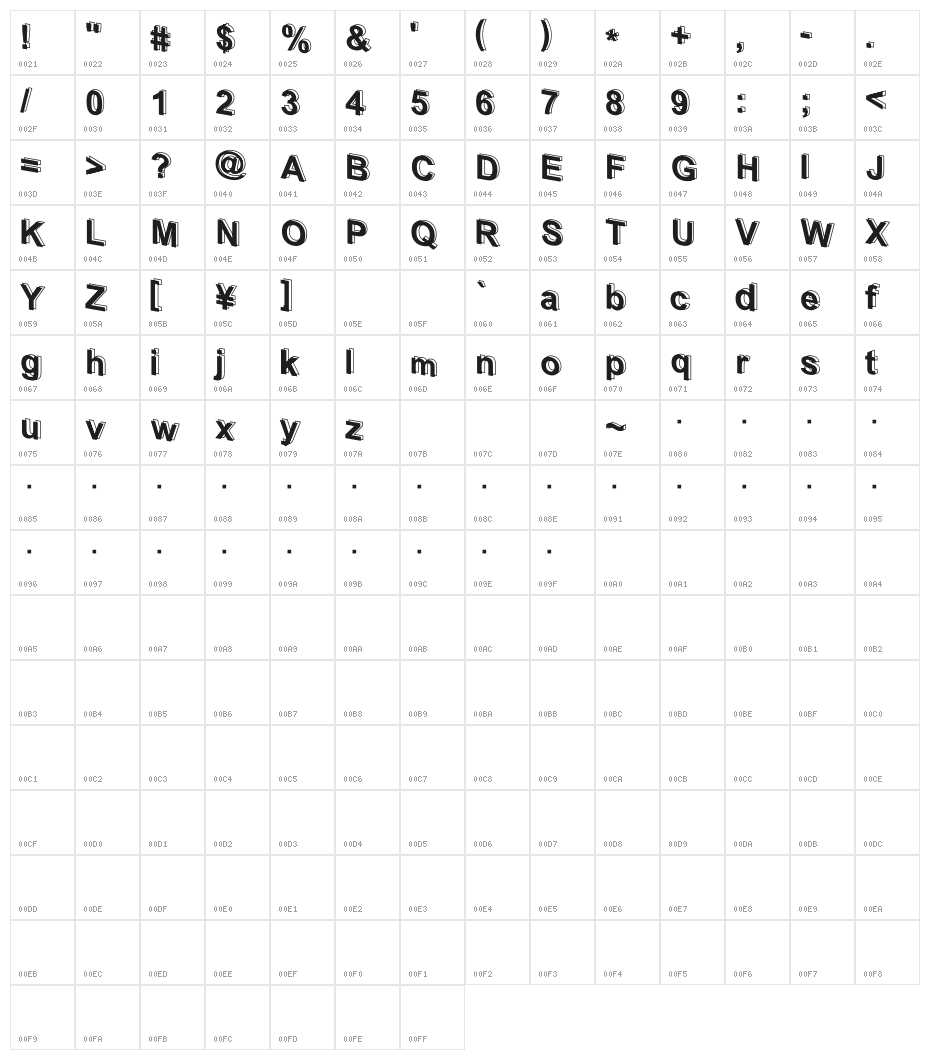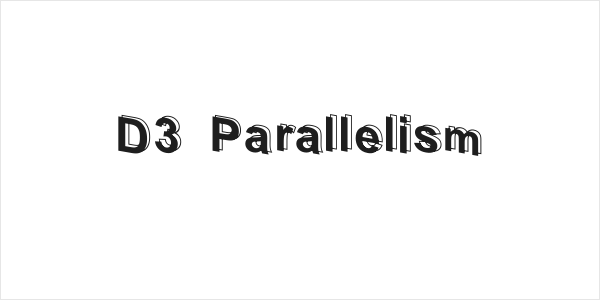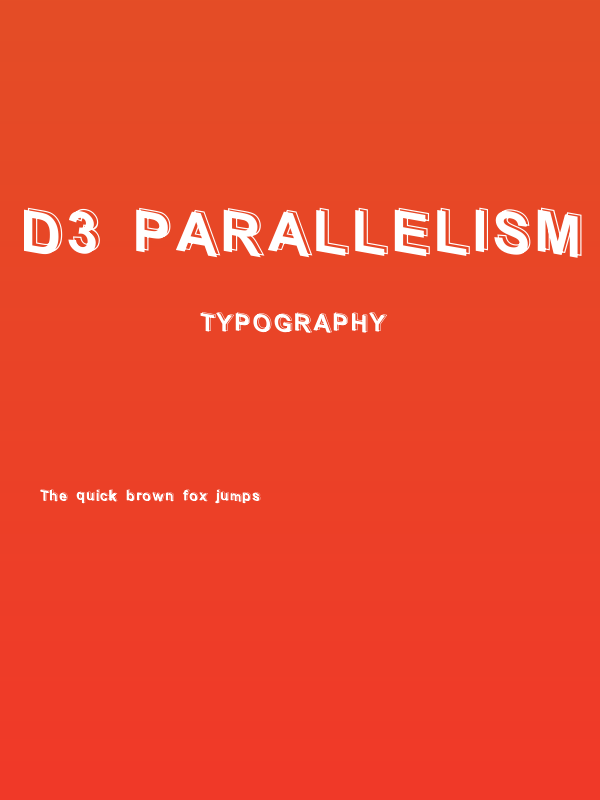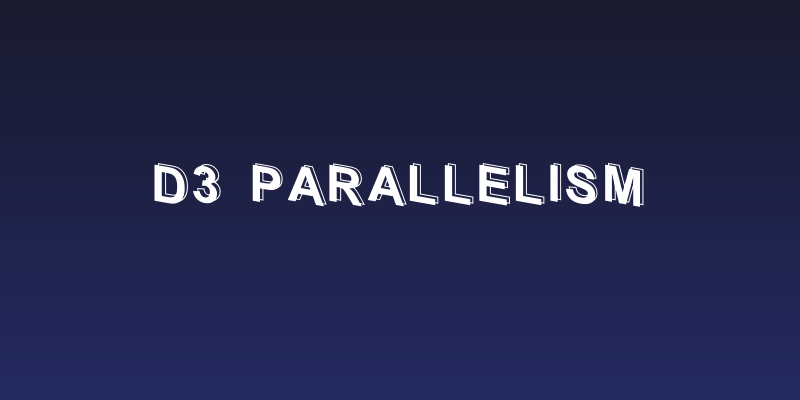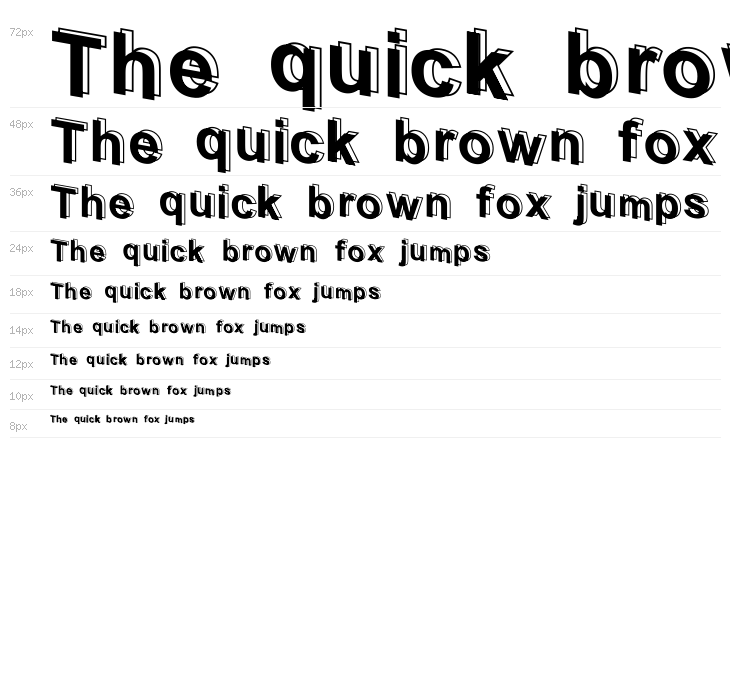
D3 Parallelism Font
D3 Parallelism Description
This font features a bold, three-dimensional design with a shadow effect that gives each character a sense of depth and movement. The uppercase and lowercase letters maintain a consistent style, with clean lines and sharp angles that contribute to a modern and dynamic appearance. The numerals and special characters are equally bold, ensuring readability and visual impact. The font's strong presence makes it ideal for attention-grabbing headlines and display purposes. Its unique 3D effect adds a layer of complexity and interest, making it suitable for creative projects that require a standout typographic element.
| Proposed Projects | Ideal for posters, logos, headlines, and any design requiring a bold, modern touch. |